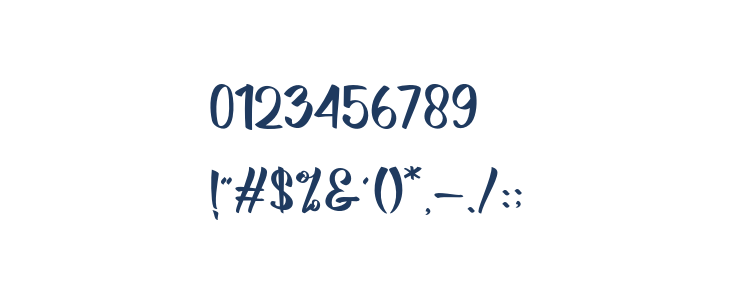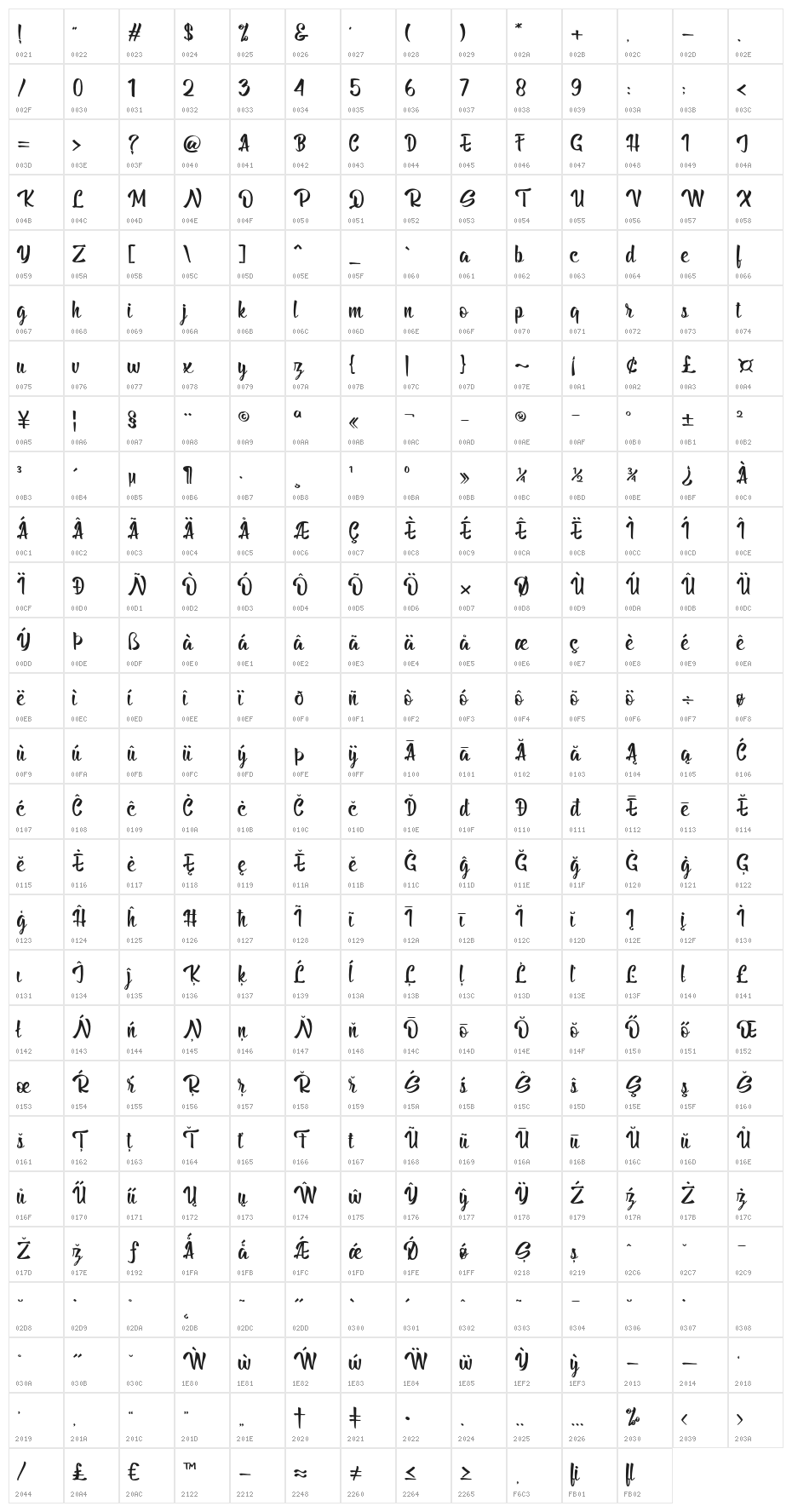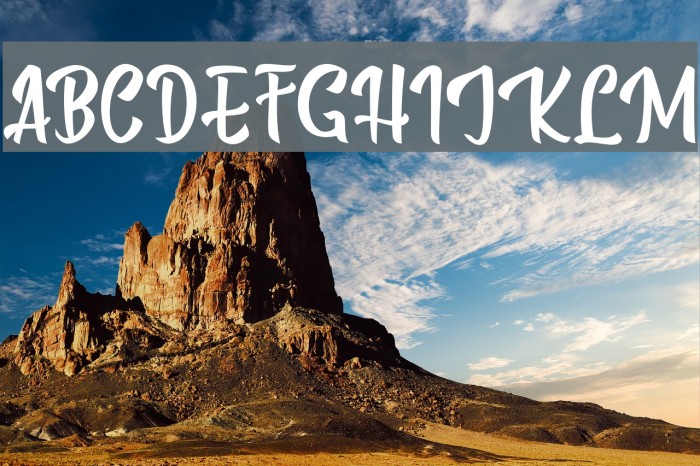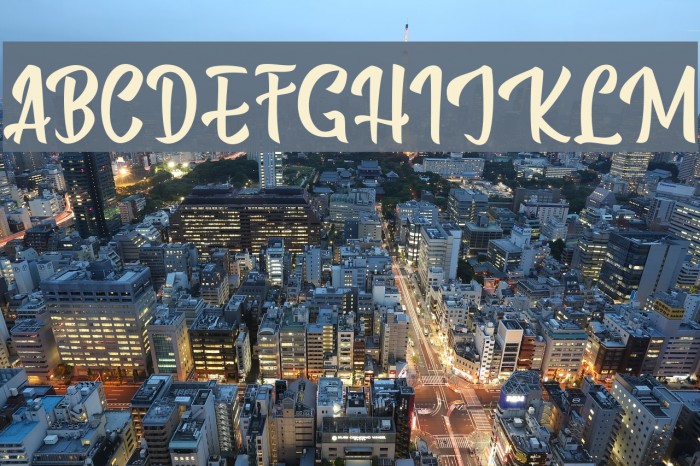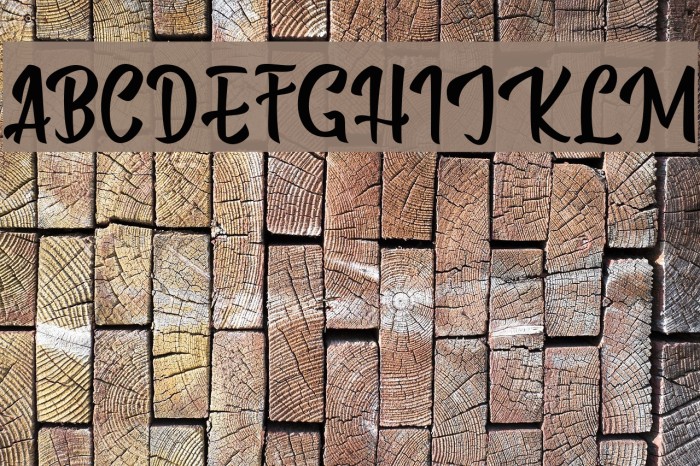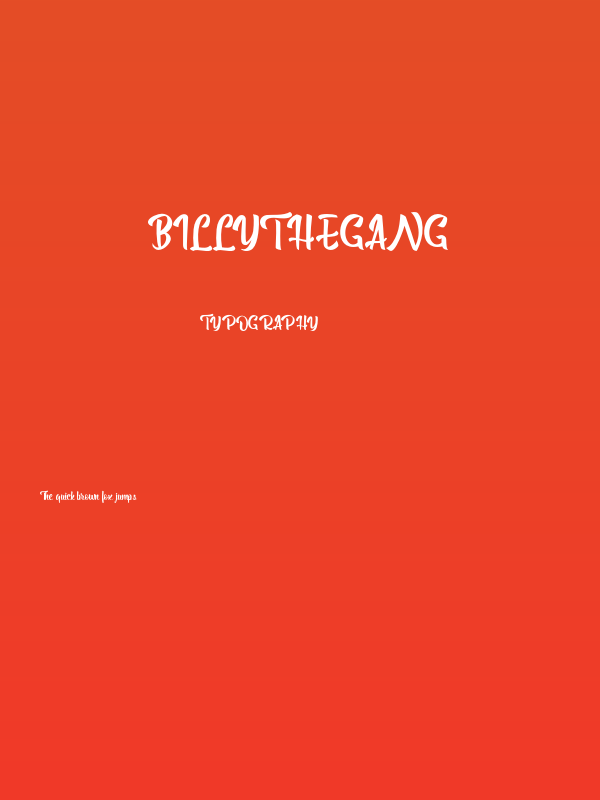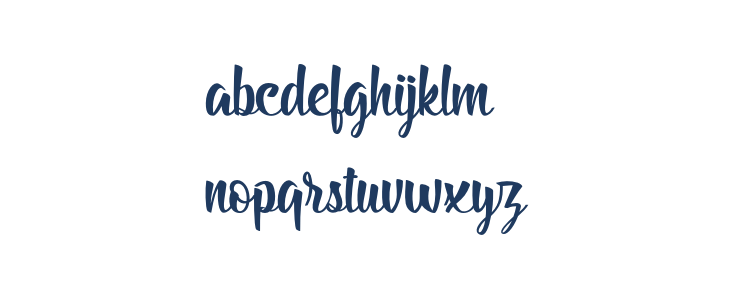
BillyTheGang Font
BillyTheGang Description
This font exhibits a bold and dynamic script style, characterized by its flowing and connected letterforms. The uppercase letters are particularly striking, with exaggerated curves and a sense of movement that suggests a handwritten quality. The lowercase letters maintain this fluidity, offering a consistent and cohesive appearance. The numerals are equally stylized, matching the overall aesthetic with their bold and slightly slanted forms. Special characters are designed to complement the letters, maintaining the same energetic and playful style. This font is ideal for projects that require a personal touch, such as invitations, branding, or any design that benefits from a lively and engaging script.
| Proposed Projects | Ideal for invitations, branding, and designs needing a lively, personal touch. |